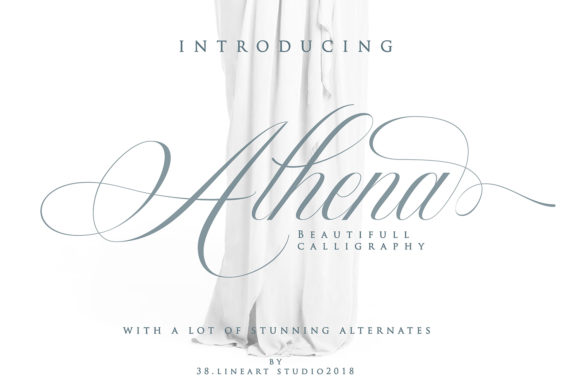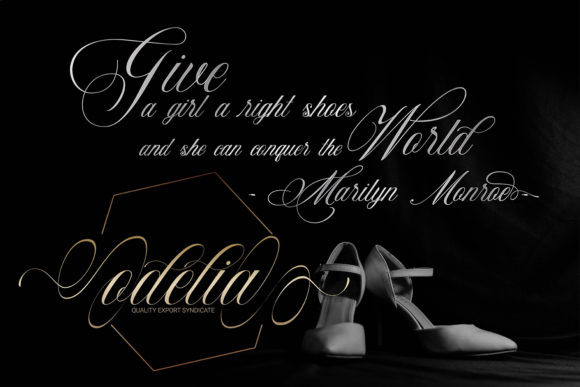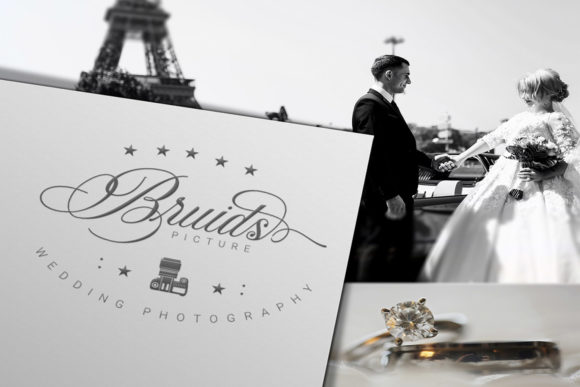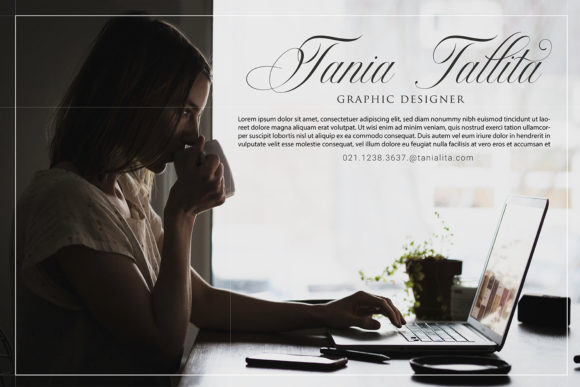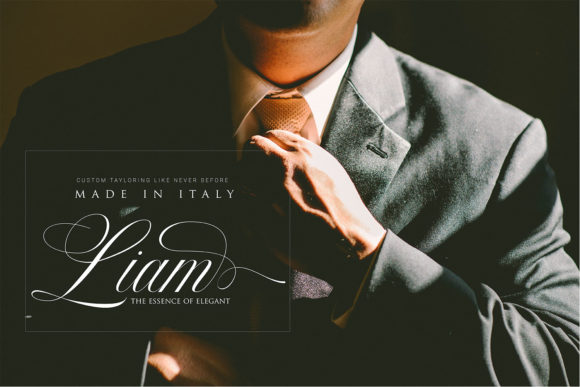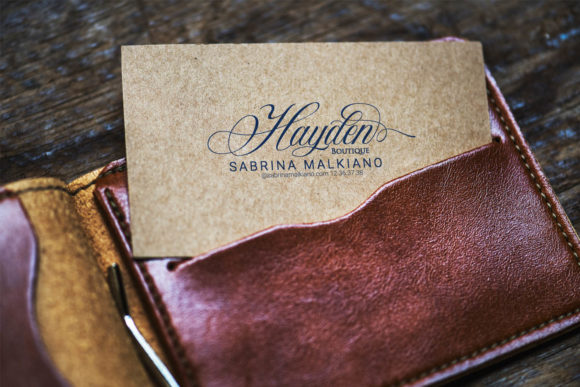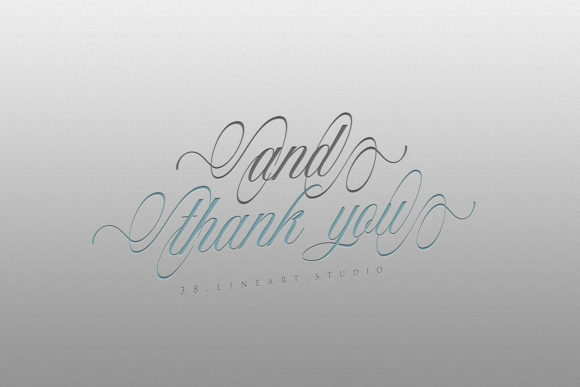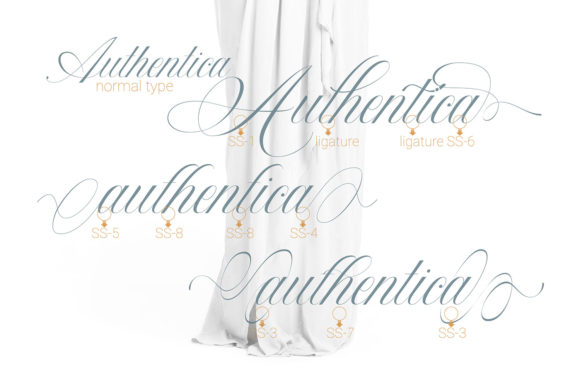
Athena Font
About Athena Font
The Athena is a beautiful calligraphy script. It was inspired by ‘Athene’, an important goddess of many things. She’s the goddess of wisdom, courage, inspiration, mathematics, strength, strategy, the arts, crafts, and skill.
The Athena comes with elegant letters with a modern touch, designed with high details to bring style, glamour, and a luxurious feel to your designs!